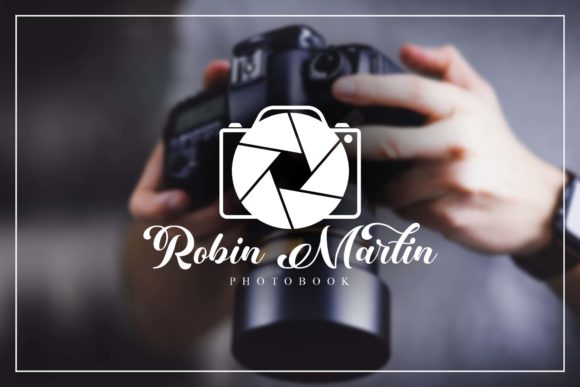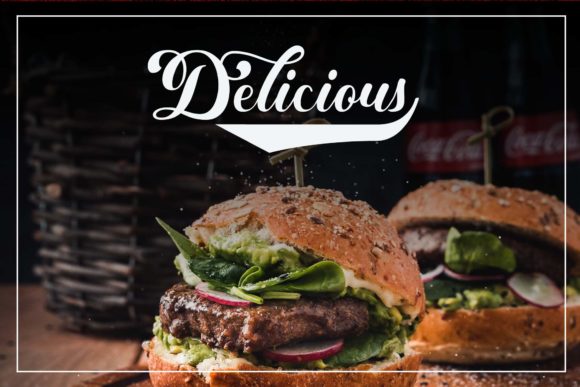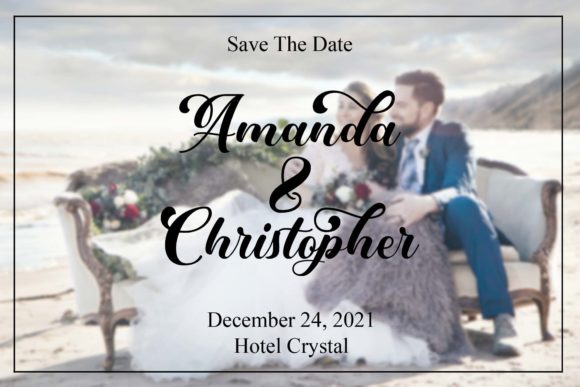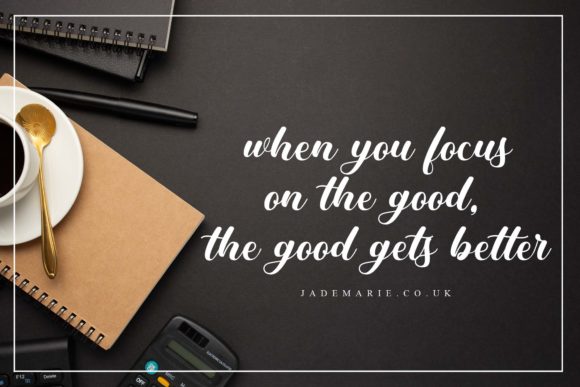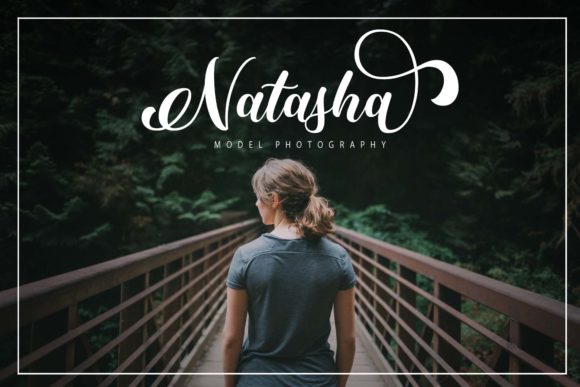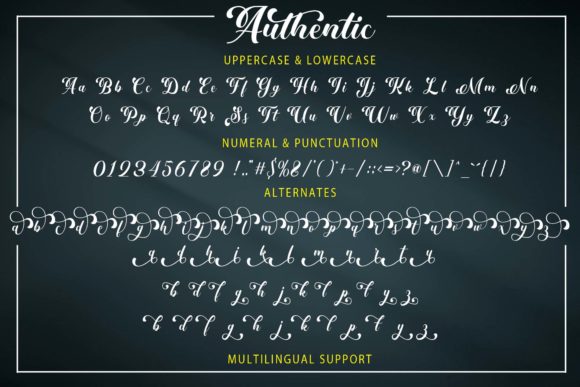
The Beauty of Authentic Font: Elevate Your Designs with Elegance
In the world of typography, a font can make or break a design. For designers and crafters seeking to add a touch of elegance and personality to their projects, the Authentic Font is a game-changer. This unique and elegant handwritten font is perfect for a variety of designs that require a personalized style, such as wedding invitations, thank you cards, weddings, greeting cards, logos, and more.
What Makes Authentic Font Stand Out?
The Authentic Font boasts a distinctive, handcrafted look that sets it apart from more traditional fonts. Its elegant strokes and beautiful lettering make it an ideal choice for designers looking to add a touch of sophistication to their work. Whether you’re creating wedding stationery, branding materials, or social media graphics, this font is sure to impress.
One of the key benefits of the Authentic Font is its versatility. It can be used on a wide range of designs, from:
- Wedding invitations and thank you cards
- Wedding decorations and signage
- Greeting cards and stationery
Its flexibility makes it an excellent addition to any designer’s toolkit.
The Authentic Font is PUA (Private Use Area) encoded, which means that accessing all of the glyphs and swashes is a breeze. This feature allows designers to easily insert special characters, ligatures, and other decorative elements into their work, giving them even more creative control.
So, what are the benefits of using the Authentic Font for designers and crafters?
- Elegant and sophisticated look: Add a touch of elegance to your designs with this beautiful handwritten font.
- Time-saving: With PUA encoding, you can quickly access all of the glyphs and swashes you need, saving you time and effort.
- Versatility: Use the Authentic Font on a wide range of designs, from wedding stationery to social media graphics.
- Unique and personalized style: Stand out from the crowd with this distinctive font that adds a personal touch to your designs.
Tips for Using Authentic Font
To get the most out of the Authentic Font, here are a few tips:
- Experiment with different sizes and colors: Find the perfect combination to match your design.
- Pair with other fonts: Combine the Authentic Font with other fonts to create a unique and visually appealing look.
- Use swashes and glyphs: Take advantage of the PUA encoding to add decorative elements to your design.
The Authentic Font is a beautiful and elegant handwritten font that is perfect for designers and crafters seeking to add a touch of sophistication to their work. With its versatility, PUA encoding, and unique style, it’s an excellent addition to any designer’s toolkit. Whether you’re creating wedding stationery, branding materials, or social media graphics, the Authentic Font is sure to impress.